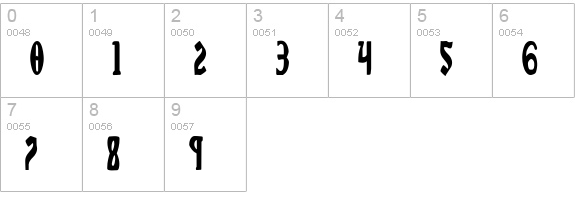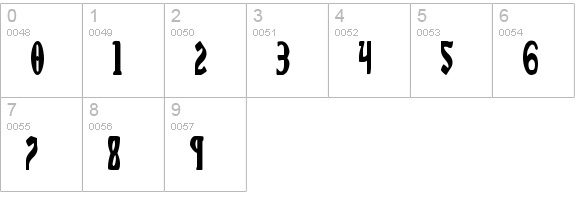
Sable Lion Condensed Font Details
Sable Lion Condensed is a distinctive, condensed-width variant in the Sable typeface family \xE2\x80\x94 well suited to design and typography projects.
Introducing Sable Lion Condensed, a captivating and powerful font that exudes elegance, sophistication, and a touch of wildness. This font is perfect for those seeking a versatile typeface that effortlessly combines strength and grace in every stroke. Sable Lion Condensed boasts a condensed design, allowing for maximum impact and legibility without compromising on style. Its tall and slender letterforms convey a sense of confidence and authority, making it ideal for a wide range of design projects, from sleek corporate branding to modern editorial layouts. With its unique combination of sharp edges and smooth curves, Sable Lion Condensed captures attention and leaves a lasting impression. Each character is meticulously crafted to ensure seamless readability, whether used in large headlines or in smaller body text. One of the most remarkable features of Sable Lion Condensed is its ability to convey a sense of both classic tradition and contemporary innovation. Its timeless elegance is beautifully balanced with a modern twist, making it suitable for a variety of design styles and purposes. And the best part? Sable Lion Condensed is freely available to download at FontsMarket.com. This means that you can bring this striking font into your design arsenal without any cost or restrictions. Whether you're a professional designer or an enthusiastic hobbyist, Sable Lion Condensed offers you the opportunity to elevate your creations to new heights. So, don't wait any longer. Unleash the power and grace of Sable Lion Condensed in your next design project and experience the impact it can make. Download it for free at FontsMarket.com and let your creativity roar!